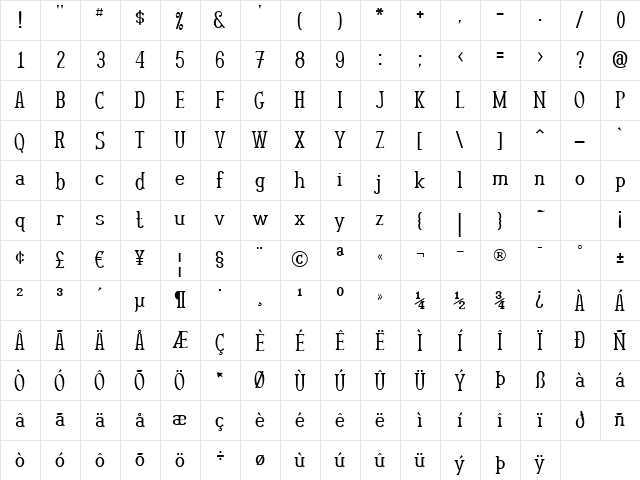
Rutaban Normal
Design Context for Rutaban Typeface
Rutaban takes a measured approach to typography — its balanced proportions and neutral character make it a reliable workhorse for both digital and print work.